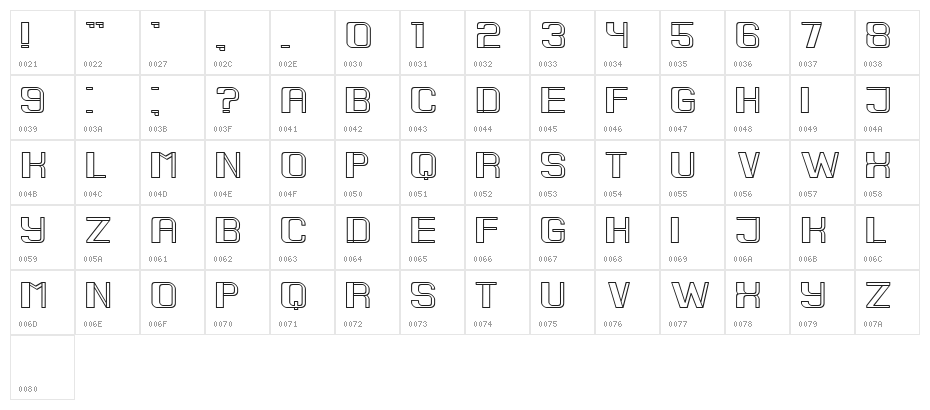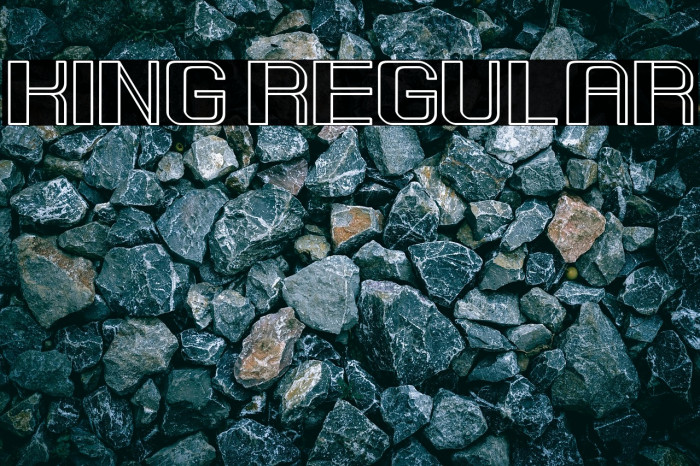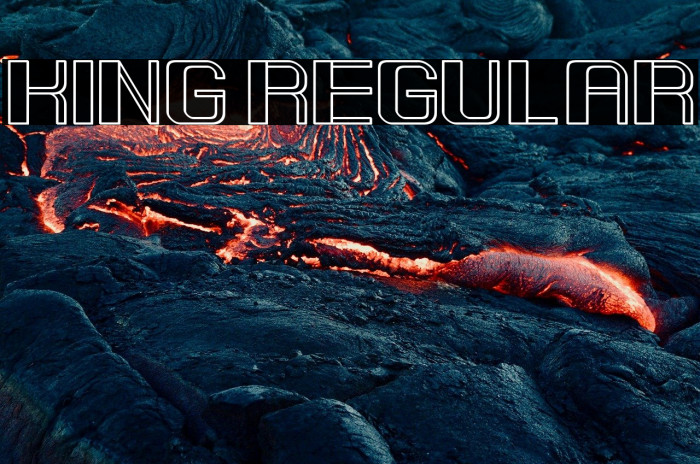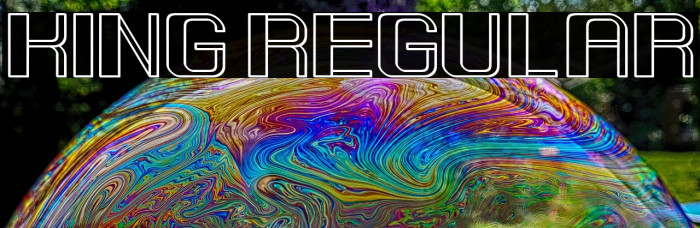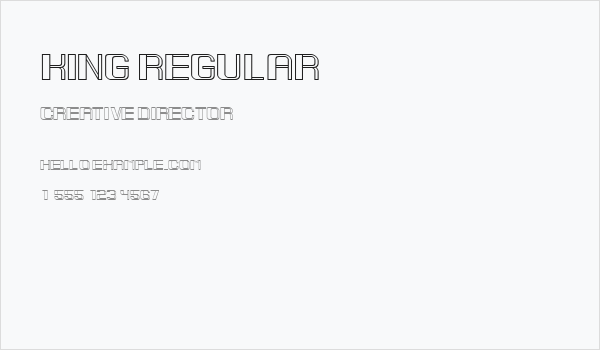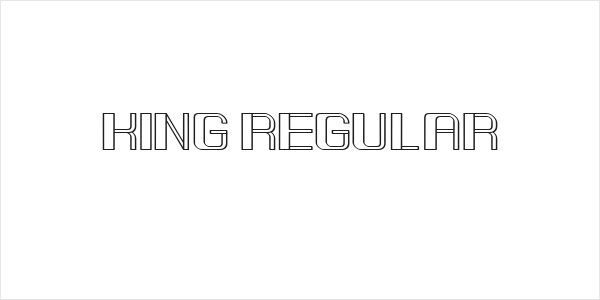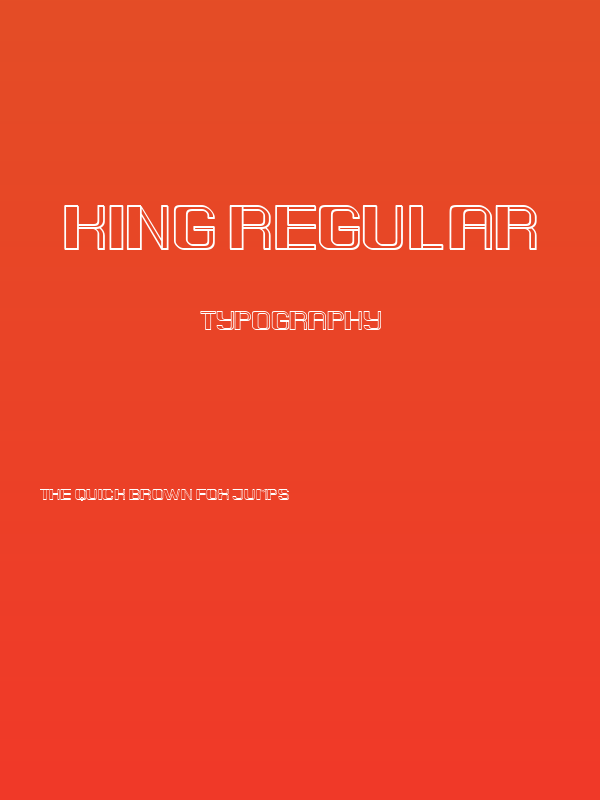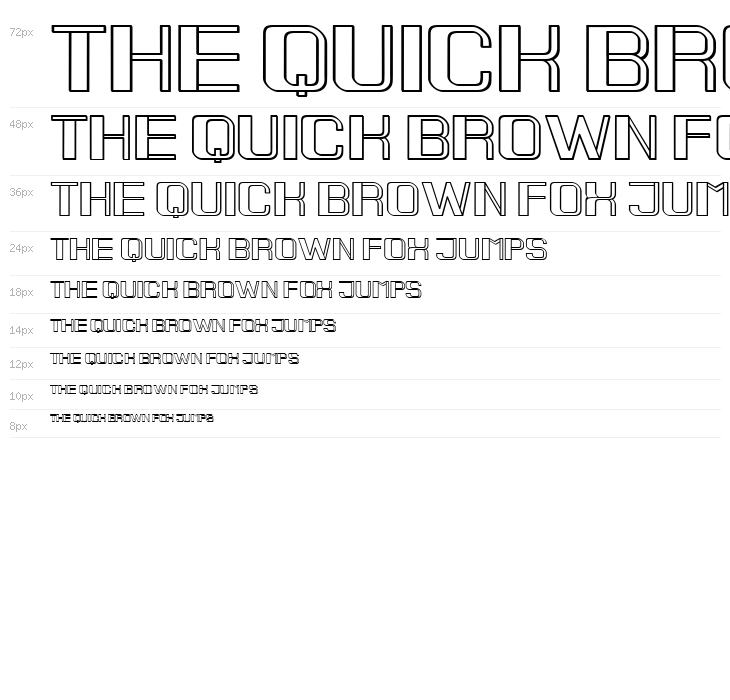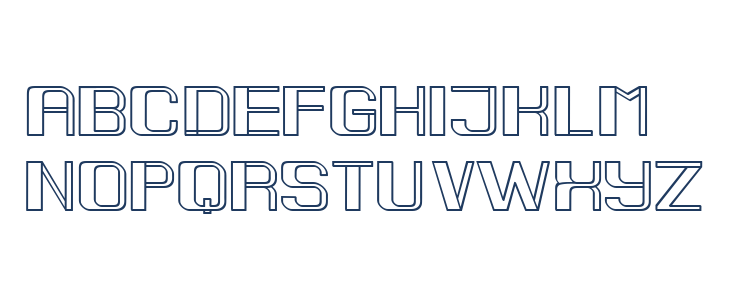
King Regular Font
King Regular Description
This font features a modern, geometric design with a distinct outline style. Each character is constructed with clean, straight lines and sharp angles, creating a futuristic and technical appearance. The uppercase letters are bold and commanding, while the lowercase letters maintain the same structural integrity. Numbers and special characters follow the same design principles, ensuring consistency throughout. The font's open structure and lack of filled areas give it a unique, airy feel, making it stand out in any design project.